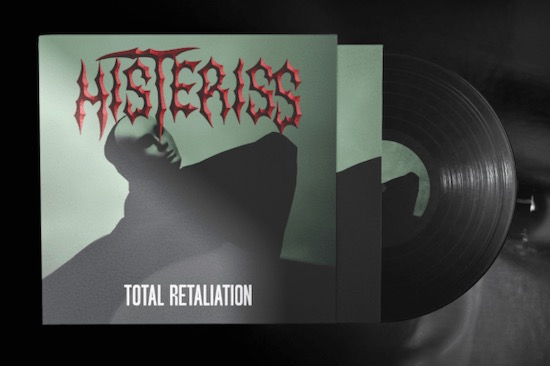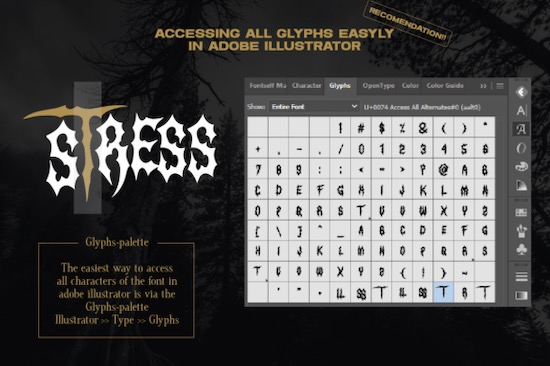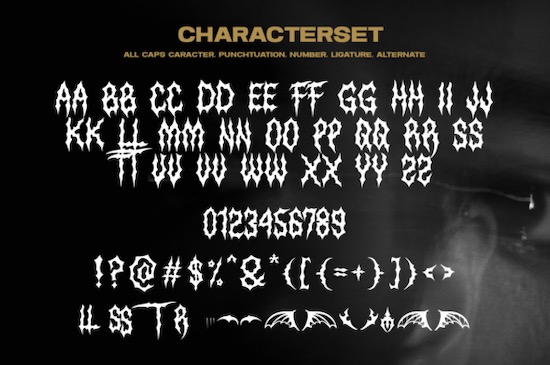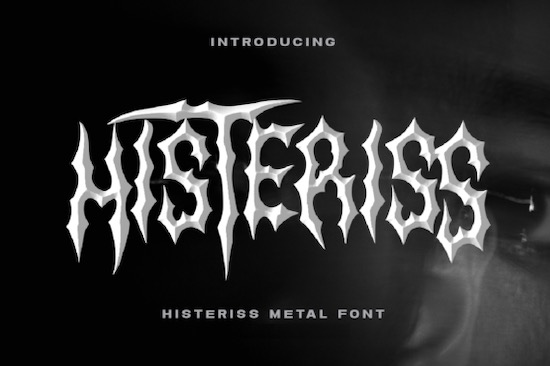
Hysteriss is a unique blackletter font with a horror and creepy style. The font was inspired by underground metal bands. It has a unique spooky style that will bring a special effect to your projects. It will work for artists, branding, makeup, events, and more.
Histeriss Blackletter Font